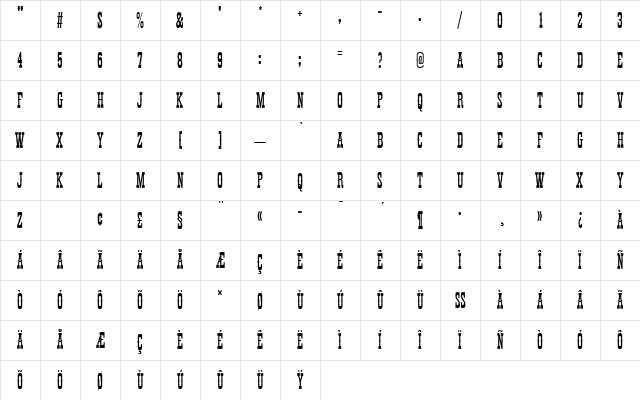
ThunderbirdDExtConRo1 Regular
Design Context for ThunderbirdDExtConRo1
ThunderbirdDExtConRo1 is a composed and adaptable typeface that performs quietly and consistently across a wide range of design contexts.
Pro Tip: Use ThunderbirdDExtConRo1 in both headline and body roles to test its range before committing to a single application.